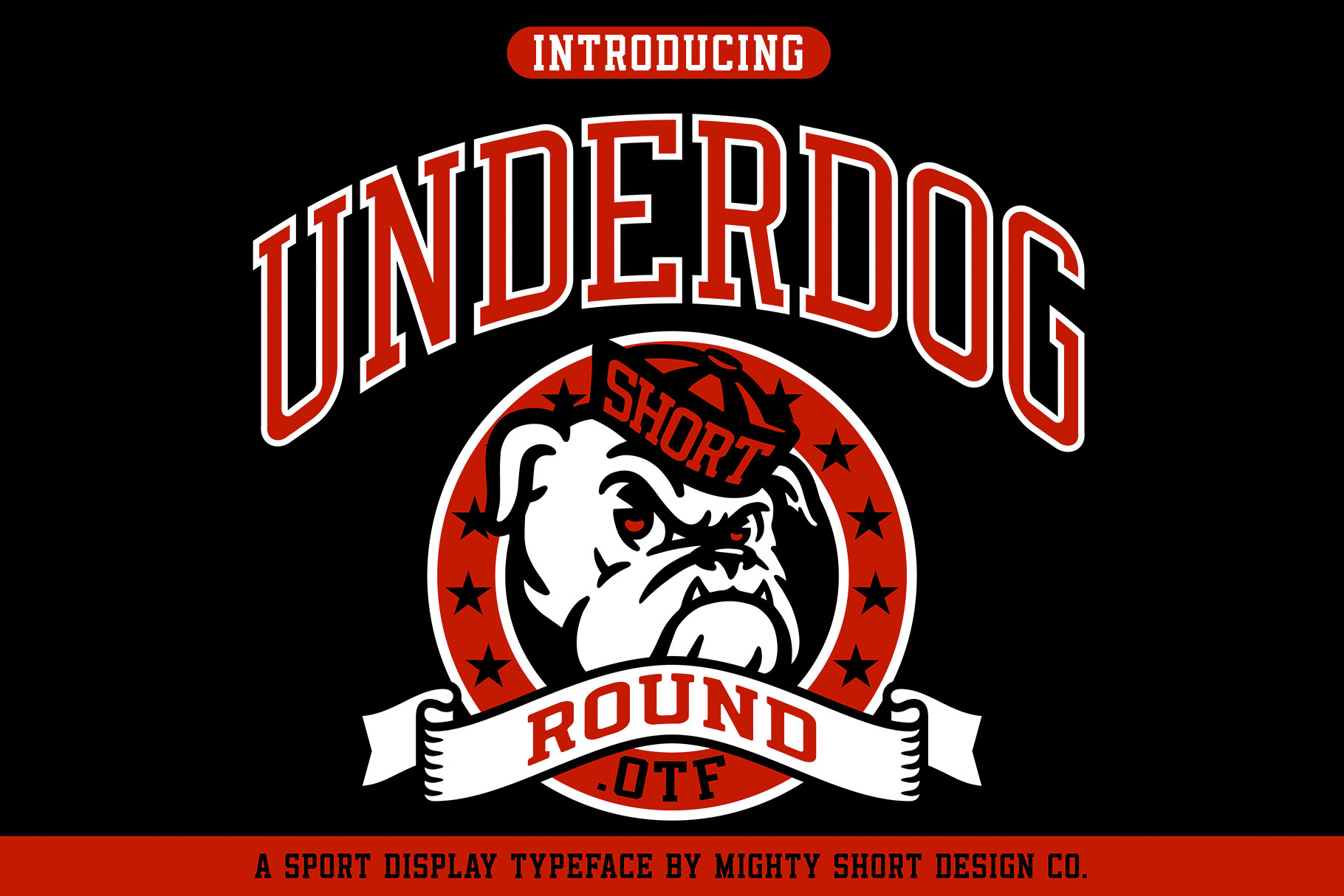
Underdog Round Typeface
Underdog is a typeface inspired by vintage sport aesthetic. The typeface includes 4 fonts: Underdog Regular, Underdog All Star, Underdog Square and Underdog Inked. The 4 fonts come with uppercase, lowercase, numbers, punctuation and some alternate characters.